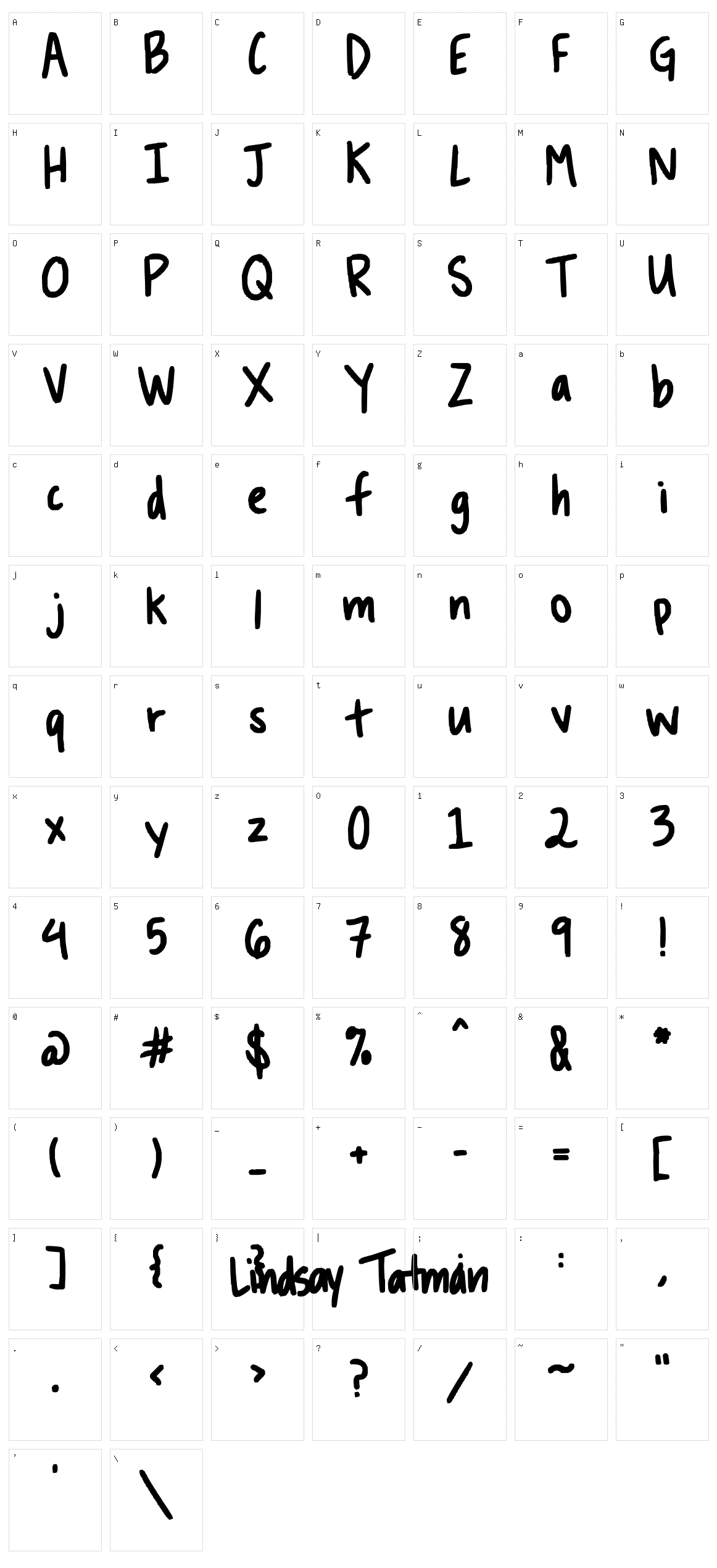
The free font Lemon Squeezy is carefully designed by Lindsay Tatman, showcasing a thoughtful balance of creativity and usability and falls under the Script font style. When you download the ZIP file, it contains only 10.89 KB of font files, making it lightweight and quick to download. Please review the license details below to understand permitted usage and distribution rights. If license information is not available, we recommend using this font for personal projects only or contacting the author directly for commercial usage permissions.